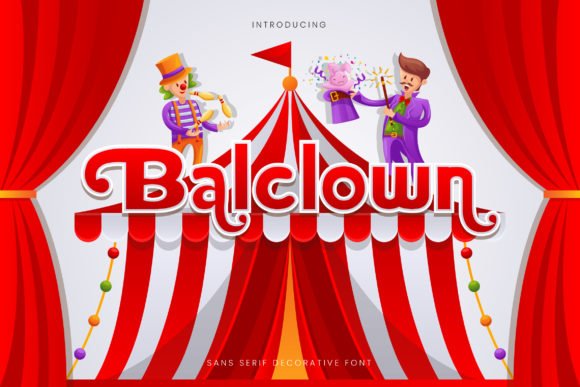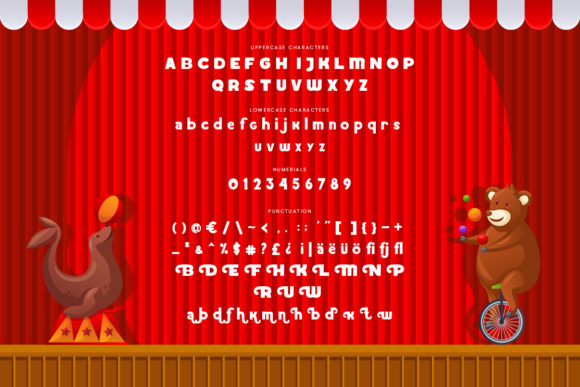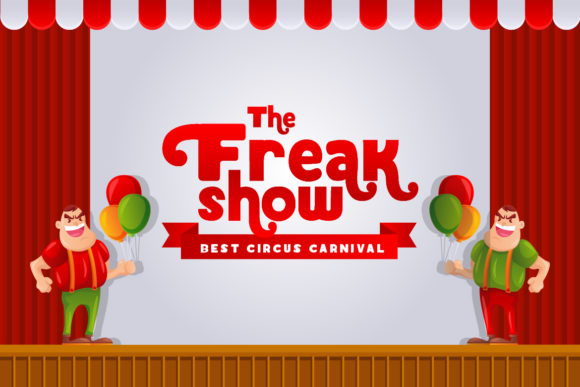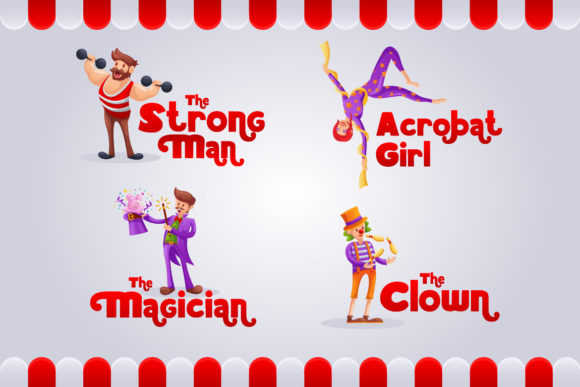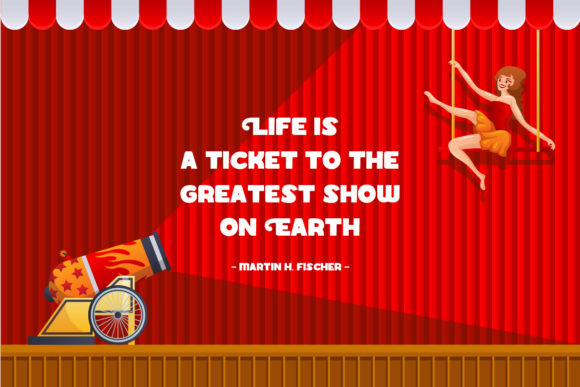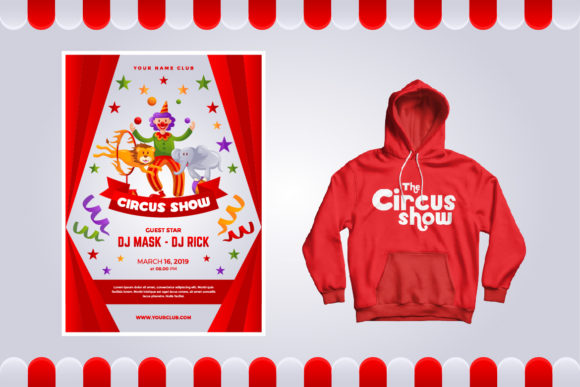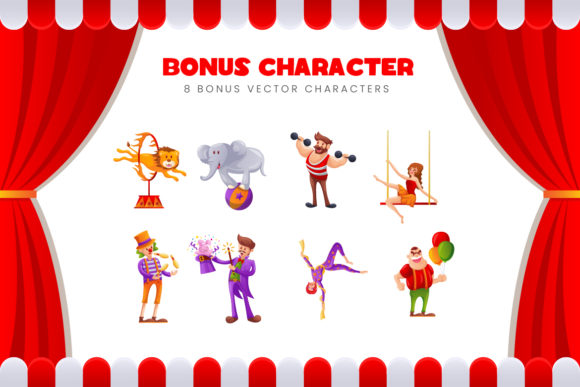
The Perfect Addition to Your Creative Masterpiece: Balclown Font
Have you ever been brainstorming a new project, pouring over ideas, and suddenly, the perfect concept strikes you? That rush of excitement and inspiration is what drives us as creatives. And what’s the best way to bring that concept to life? With the right tools, of course! In this article, we’ll be exploring the Balclown Font, a bold and chunky lettered display font that’s sure to make your creative ideas stand out.
Designed to grab attention and add a touch of personality to your designs, the Balclown Font is a valuable asset for any designer looking to take their work to the next level. Its chunky, bold letters are perfect for headings, titles, and even entire branding identities. Whether you’re working on a logo, poster, or social media campaign, the Balclown Font is sure to be a game-changer.
Balclown Font Key Features
- Unique Characteristics: Balclown Font features a unique blend of whimsical and playful elements, making it suitable for children’s books, advertisements, and other creative projects
Designer Review: Balclown Font
Overall, I’d say the Balclown Font is a mixed bag. While it’s got some great qualities, there are a few limitations that hold it back from being a top contender.
- ✨ The Balclown Font has a unique, playful feel to it. The rounded edges and quirky shapes make it perfect for creating eye-catching headlines and titles.
- ✨ The font is highly customizable, with a wide range of weights and styles to choose from. This makes it easy to adapt to different design contexts and moods.
- ✨ The Balclown Font is highly legible, even at small font sizes. This makes it a great choice for body text and smaller-scale designs.
- ⚠️ One major limitation of the Balclown Font is its limited functionality. It’s not suitable for complex text-based designs or applications that require precise typography.
- ⚠️ Another limitation is the font’s inconsistent line height. This can make it difficult to achieve a clean, polished look, especially in multi-line text.
The Balclown Font is a great choice for designers looking to add some whimsy and personality to their work. While it may not be the most versatile font out there, it’s perfect for creating bold, attention-grabbing headlines and titles. With a little creativity and flexibility, the Balclown Font can be a valuable addition to any designer’s toolkit.
Tips for Getting the Most Out of Balclown Font
For best results, use the Balclown Font in bold or italic styles to add emphasis to your text. You can also use it in combination with other fonts to create a unique and playful design.
The Balclown Font is ideal for creating playful and whimsical designs, such as children’s book illustrations, party invitations, and social media graphics.